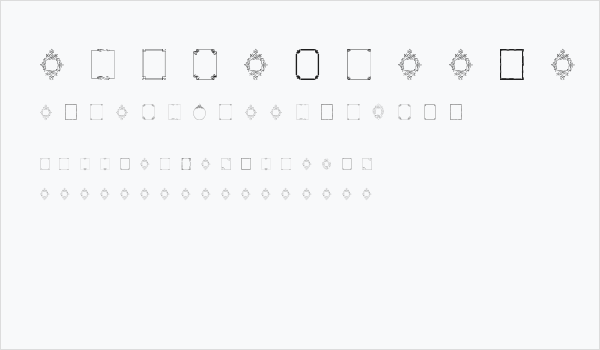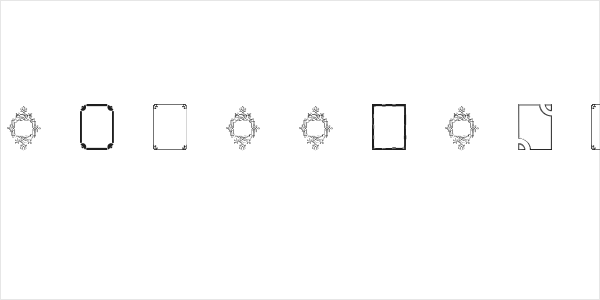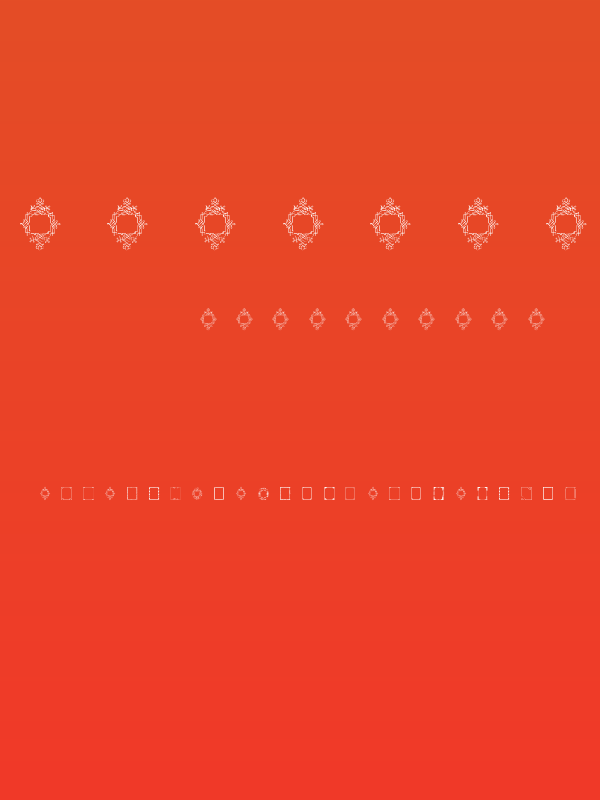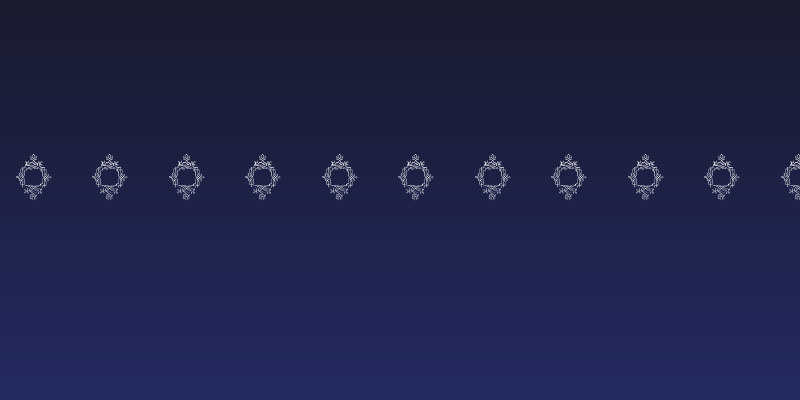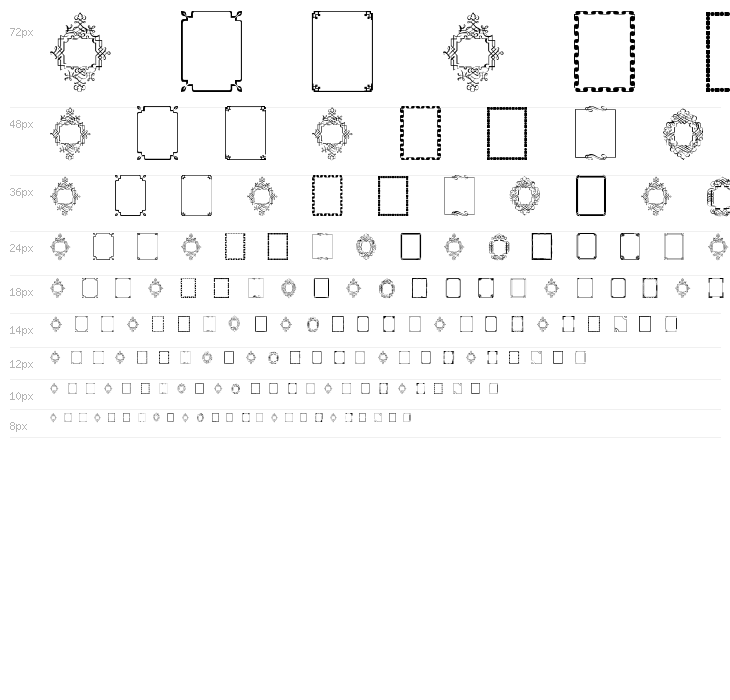
Vintage Frames 3 Font
Vintage Frames 3 Description
A decorative collection of ornate vintage-style frames and borders, featuring intricate floral and geometric embellishments in a monochrome outline style. The set includes a variety of oval, rectangular, and circular shapes, each with unique detailing suitable for ornamental purposes.
| Overall Style | Vintage, Decorative |
| Use Case | Borders, Frames, Decorative accents |
| Proposed Projects | Wedding invitations, certificates, greeting cards, scrapbooking, decorative labels, vintage-themed posters. |